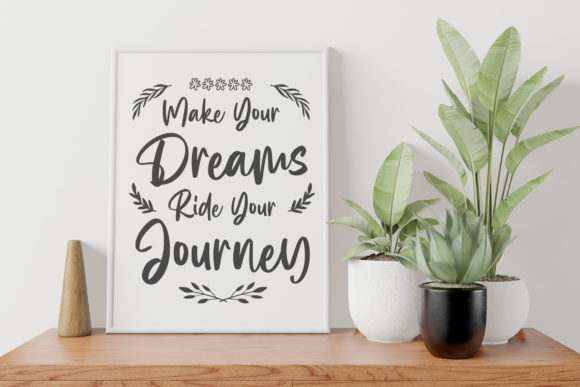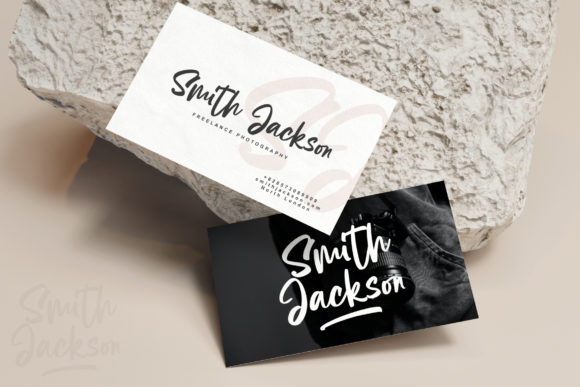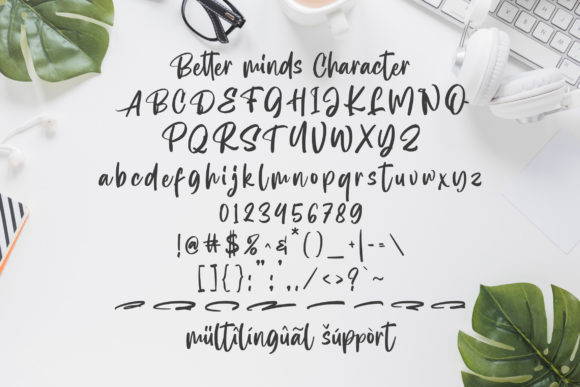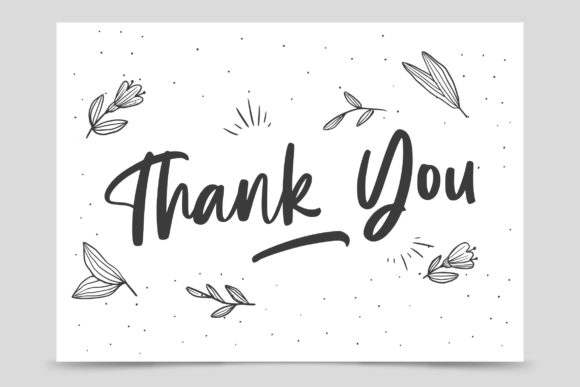
Introduction to Better Minds Font
Better Minds is a whimsical script font with a relaxed theme, featuring a lovely style.
Key Features of Better Minds Font
Why Choose Better Minds Font?